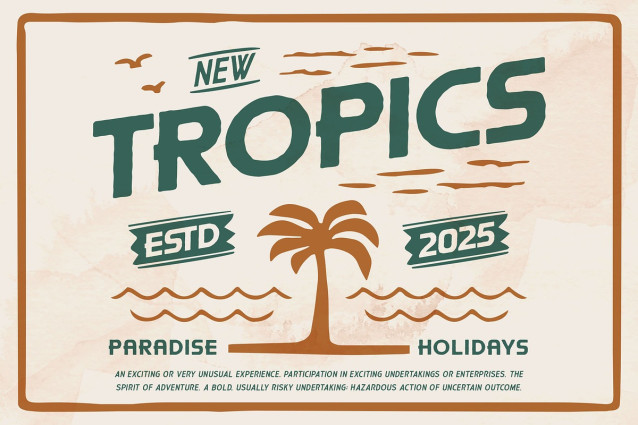
Horizon Light Expanded Font
Horizon Light Expanded Font is more than just a typeface—it is a complete design toolkit. With its rough edges and hand-stamped texture, this font family captures the authentic feel of folk art and classic letterpress printing.
Whether you are designing a logo for a coffee brand, a t-shirt for a hiking club, or packaging for artisanal goods, Horizon Light provides that perfect “imperfect” touch that makes a design feel human and organic.